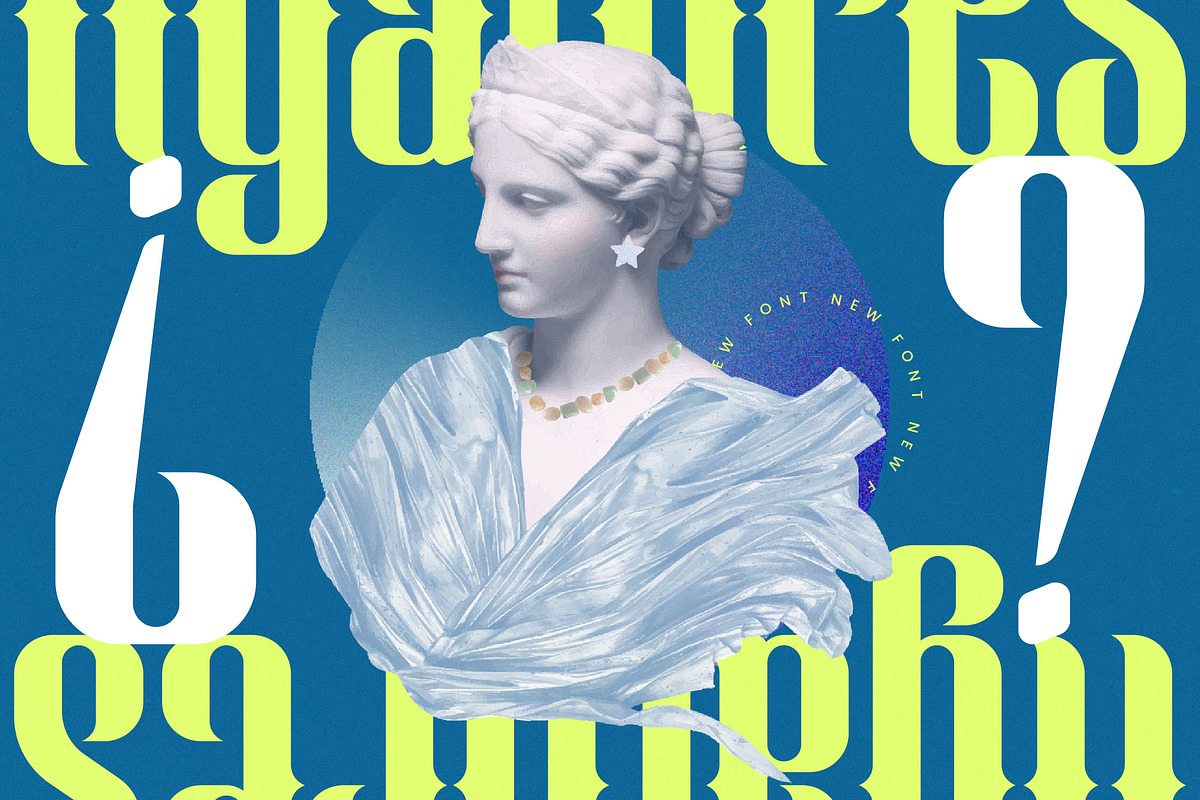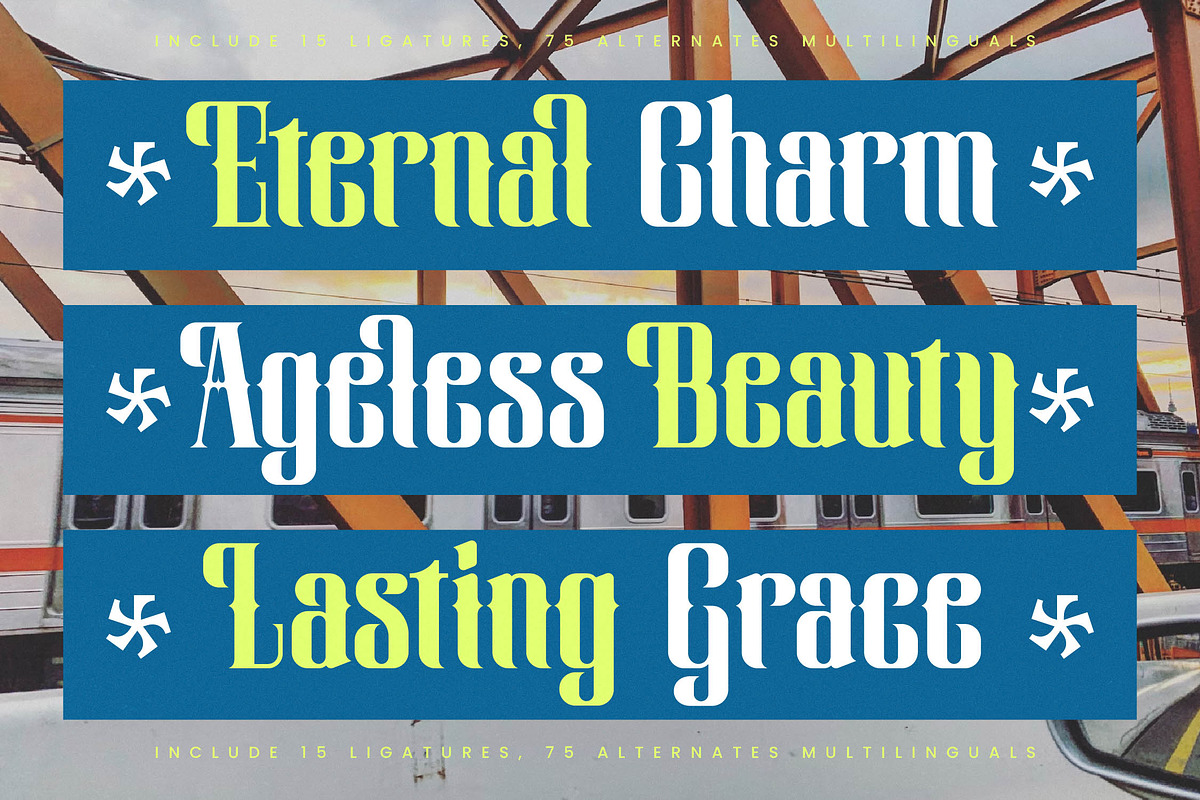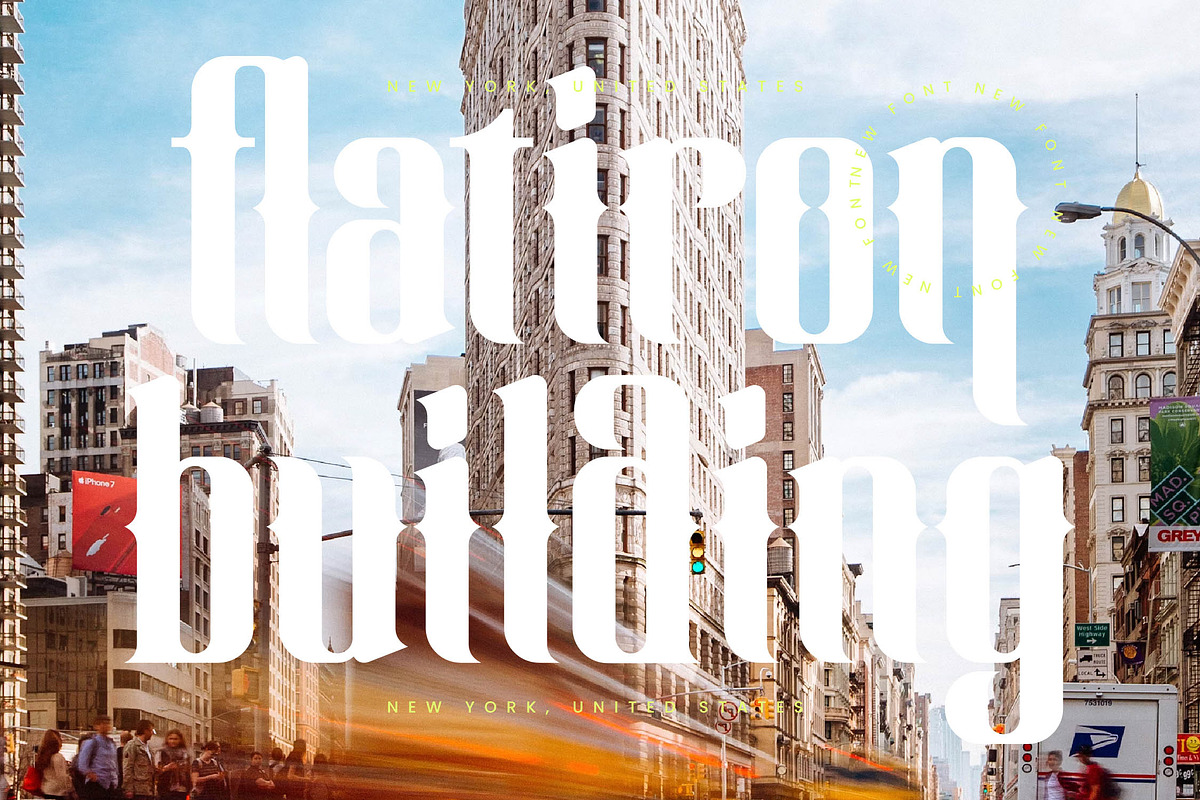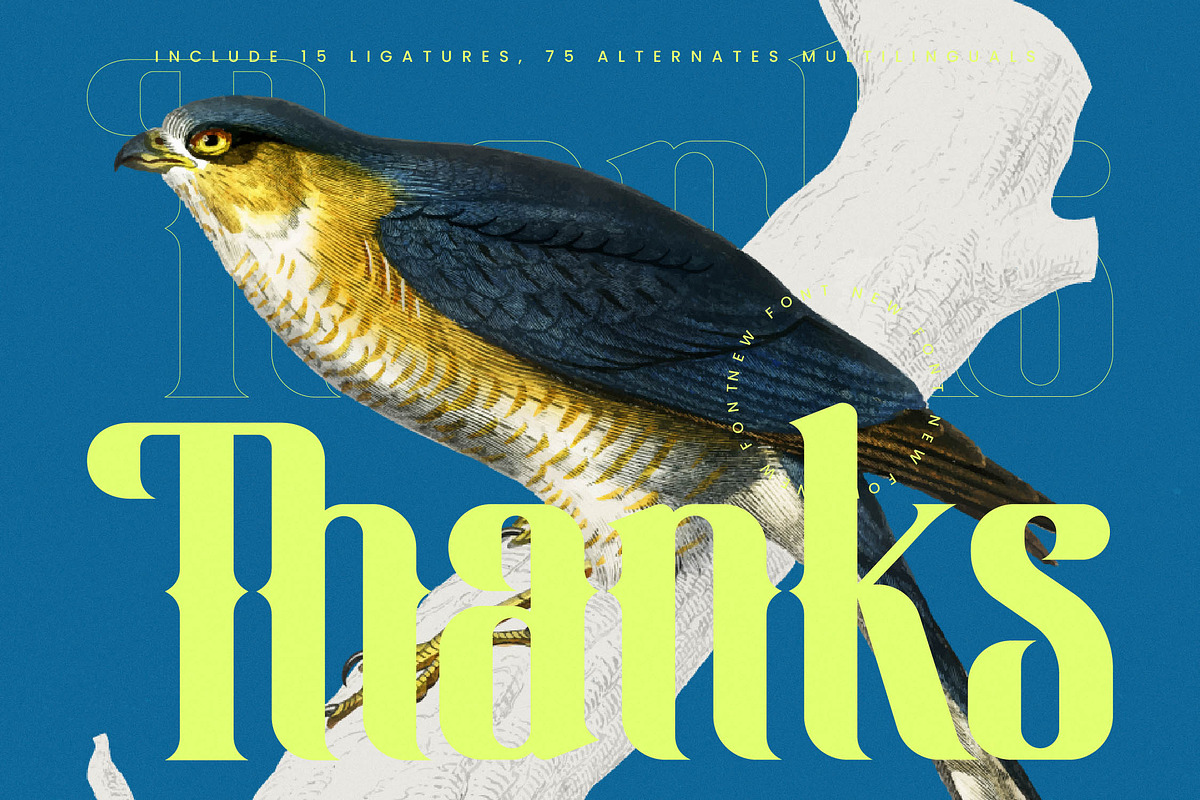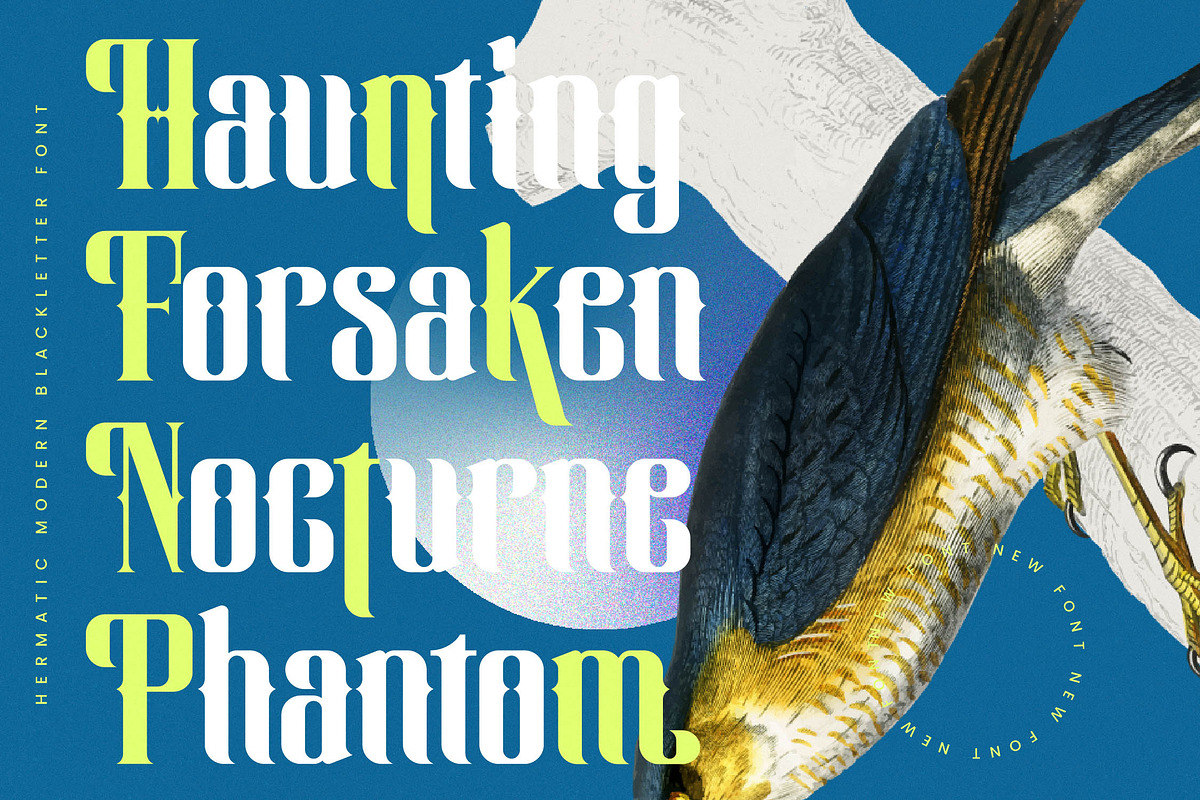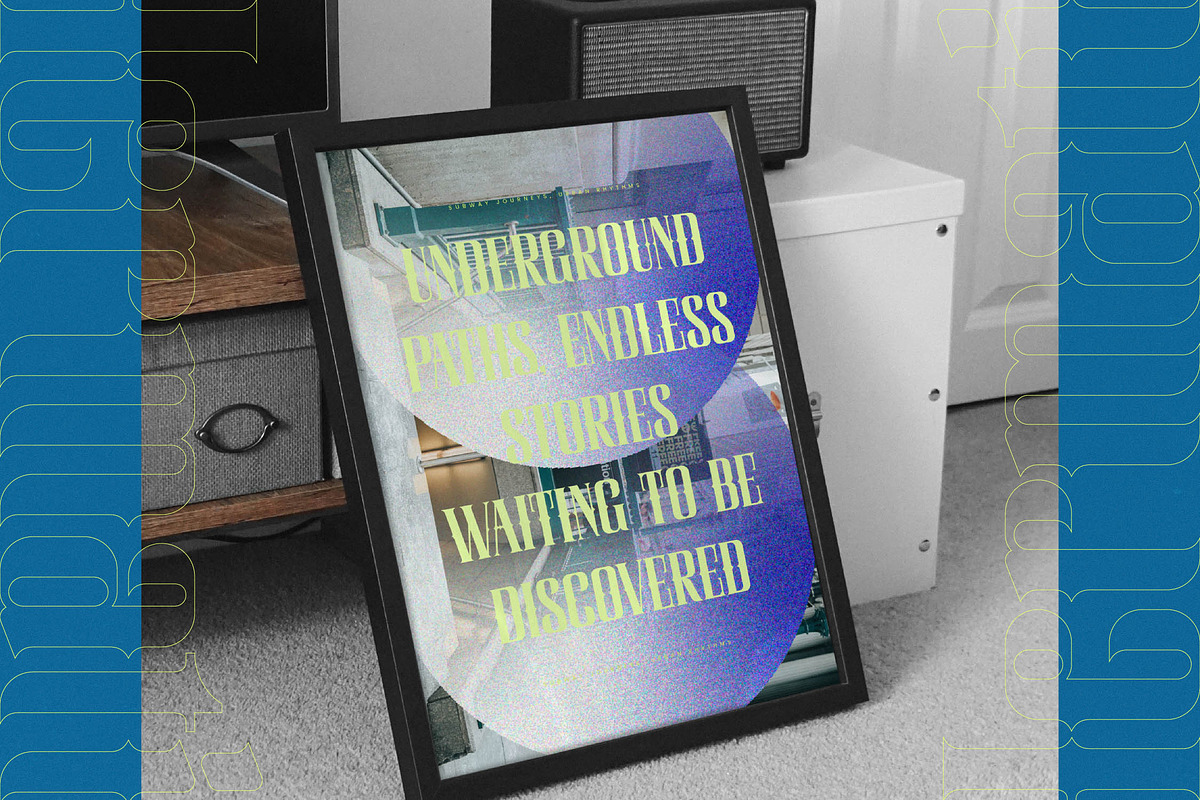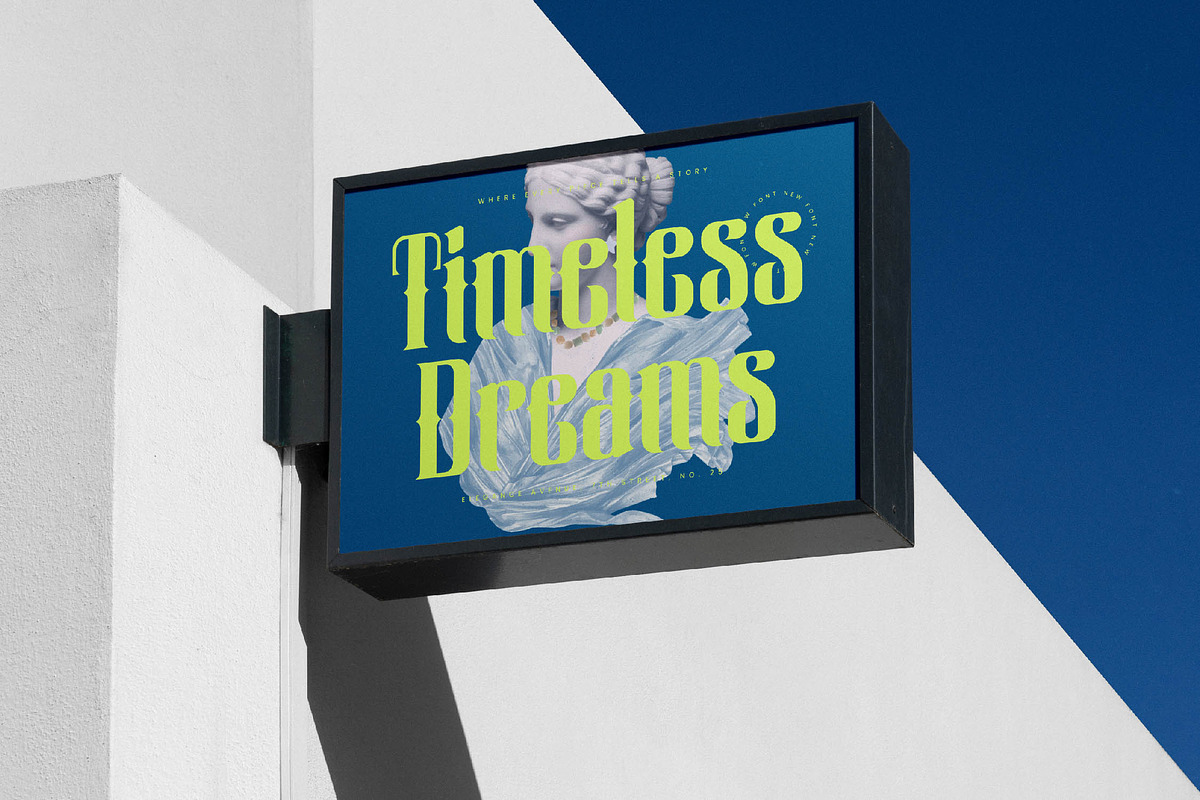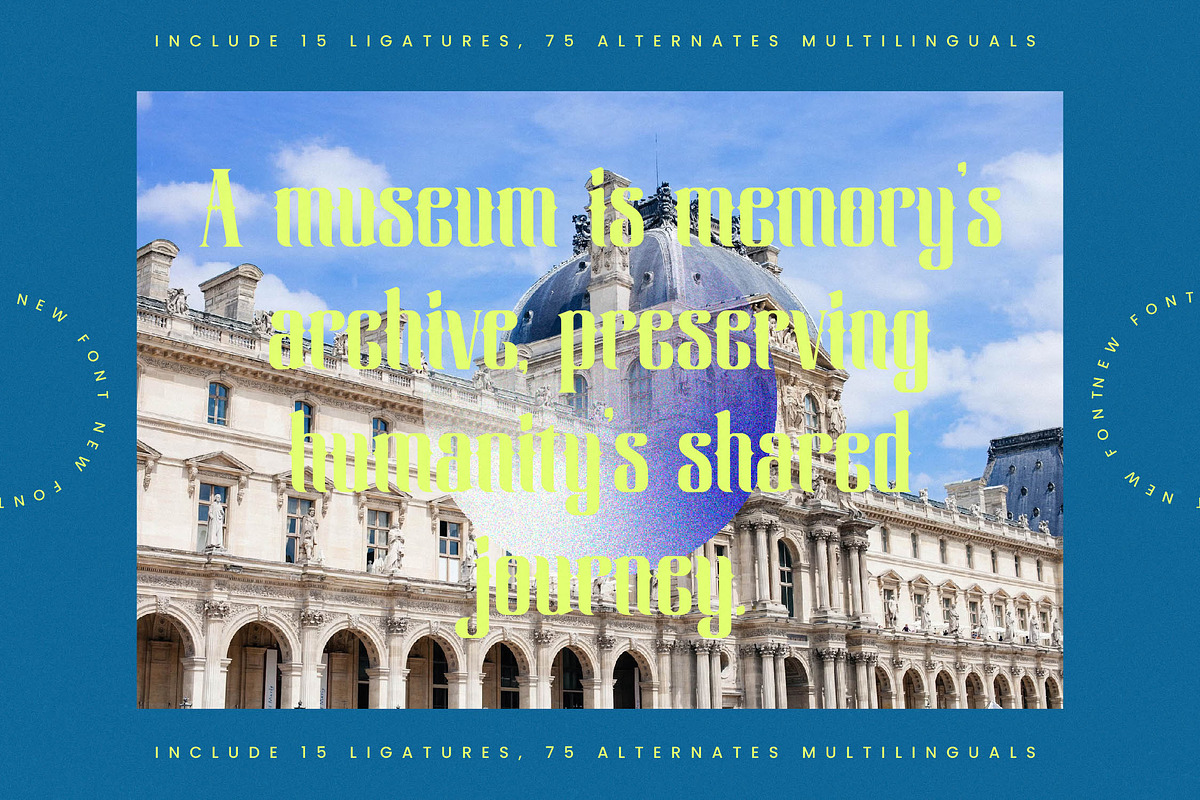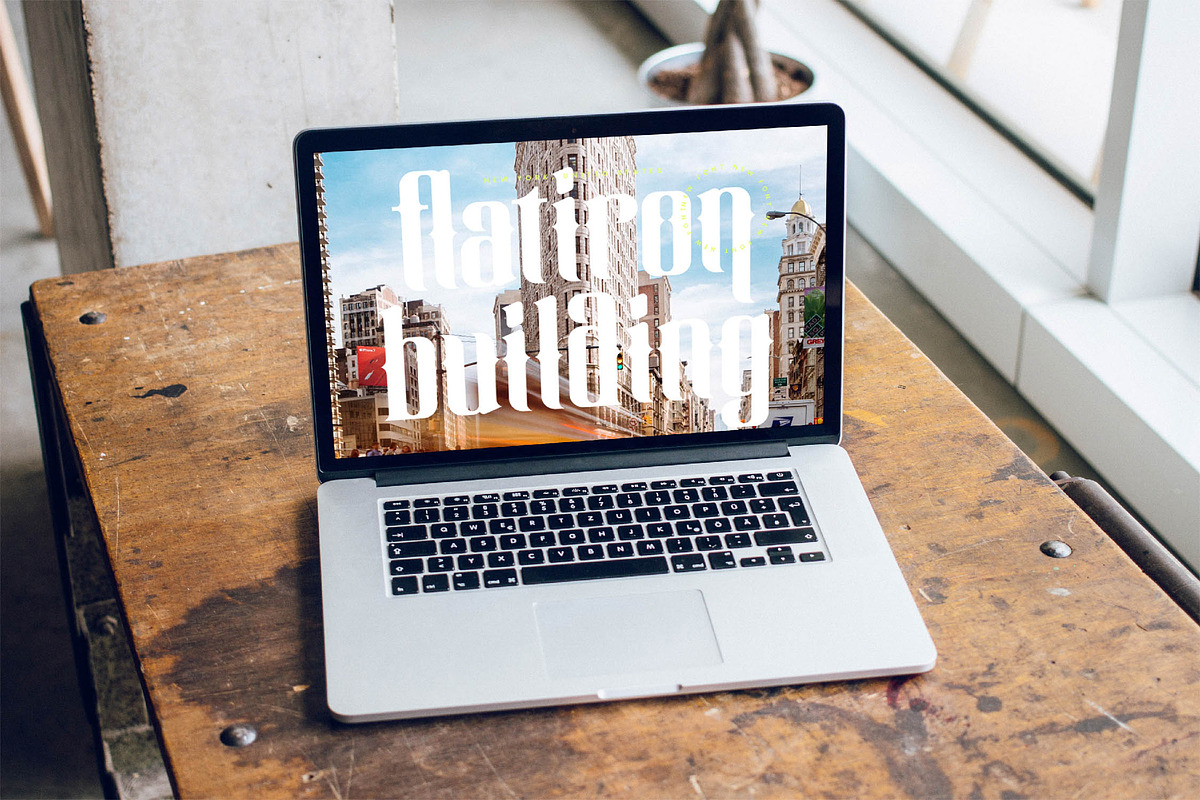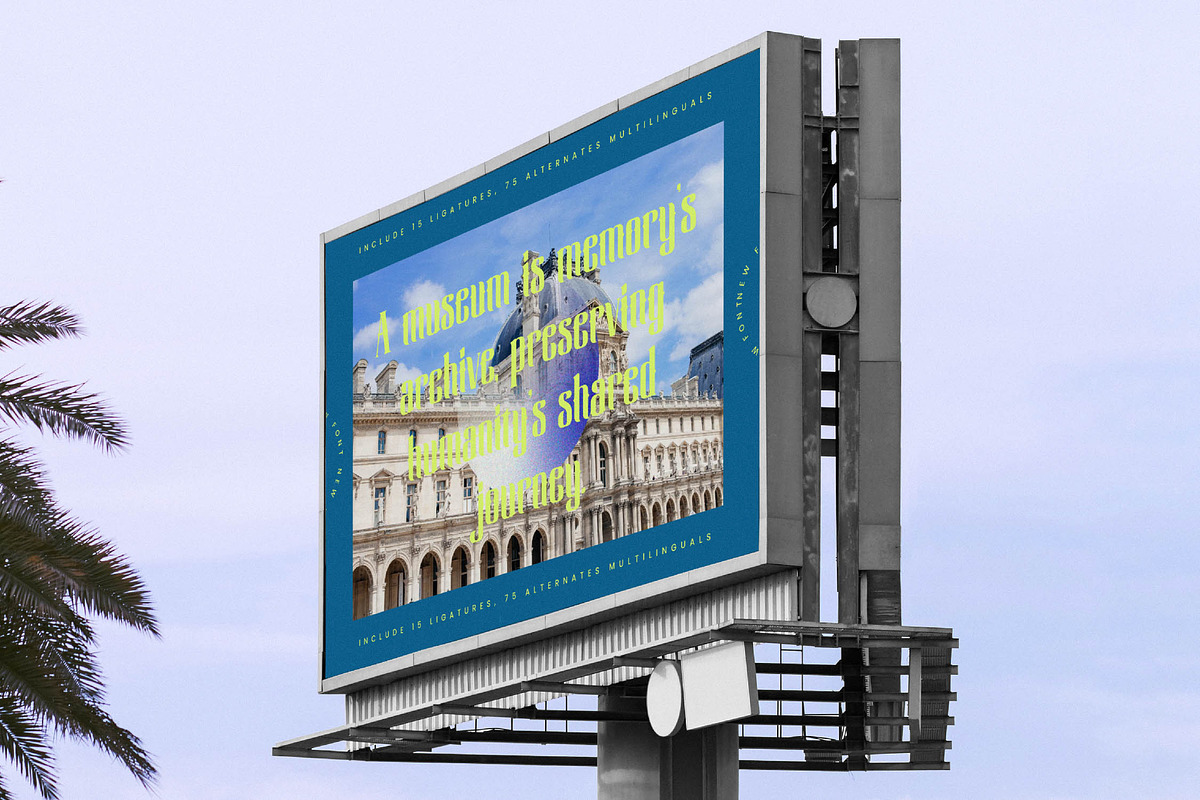
Hermatic - Modern Serif Display
Experience the commanding elegance of Hermatic, a typeface designed to bridge the gap between classic heritage and contemporary edge. It captures an undeniable presence that instantly elevates any visual narrative with its sharp, sophisticated silhouettes.
Drawing inspiration from the meticulous detail of vintage botanical and zoological engravings, this font channels the spirit of a modern alchemist. Its structure feels like a dialogue between old-world craftsmanship and the sleek lines of 21st-century minimalism, resulting in a visual language that is both timeless and provocative.
This modern serif display is a masterclass in luxury typography, offering a high-contrast serif profile that commands attention. Every glyph is crafted for maximum branding impact, making it an essential editorial font for designers who refuse to settle for the mundane.
Perfectly aligned with the current modern serif trend, this typeface responds to the industry's craving for character-driven typography. It moves beyond generic aesthetics to provide the kind of editorial display fonts that define a brand's unique identity in a crowded digital landscape.
Ideally suited for high-end logo design and comprehensive branding projects, its versatility shines in premium editorial layouts. Whether it is applied to luxury packaging, bespoke wedding invitations, or high-street fashion campaigns, it delivers a consistent aura of prestige.
Beyond its striking looks, the set includes a robust collection of ligatures and creative alternates to expand your creative possibilities. It features full multilingual support with a wide range of international characters, ensuring your message resonates globally without technical limitations.
- Ligature 15 Alternate 75